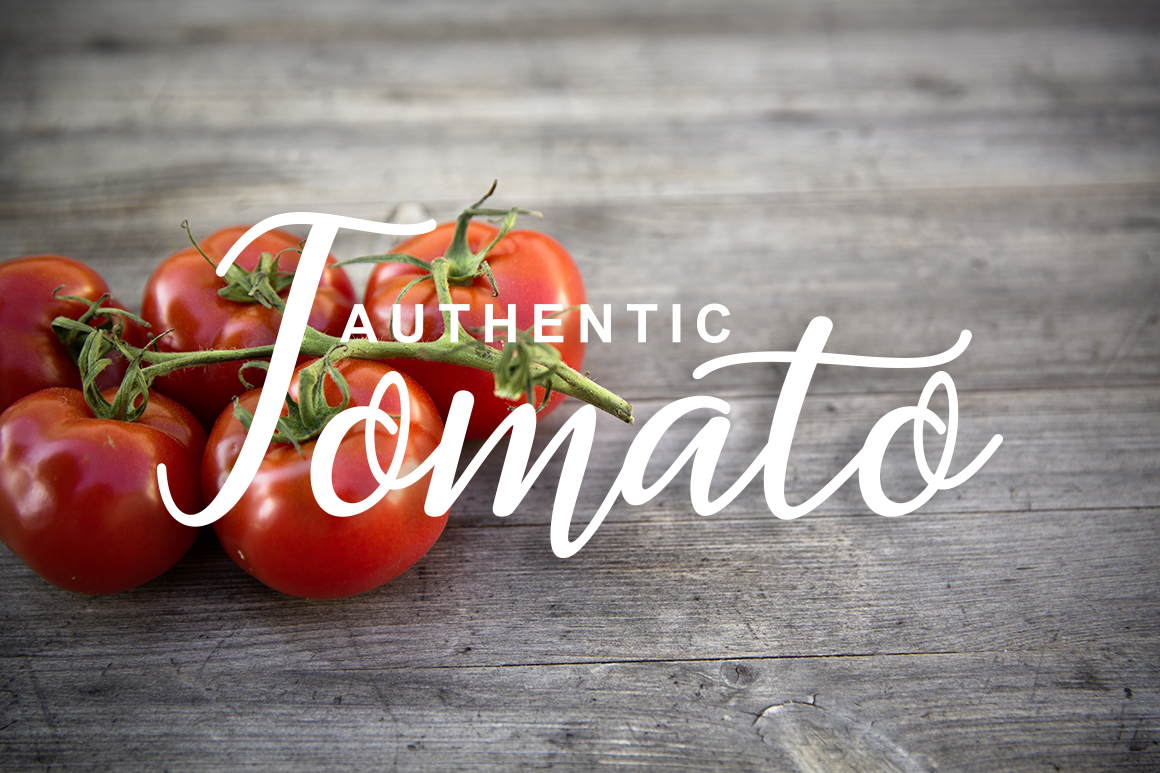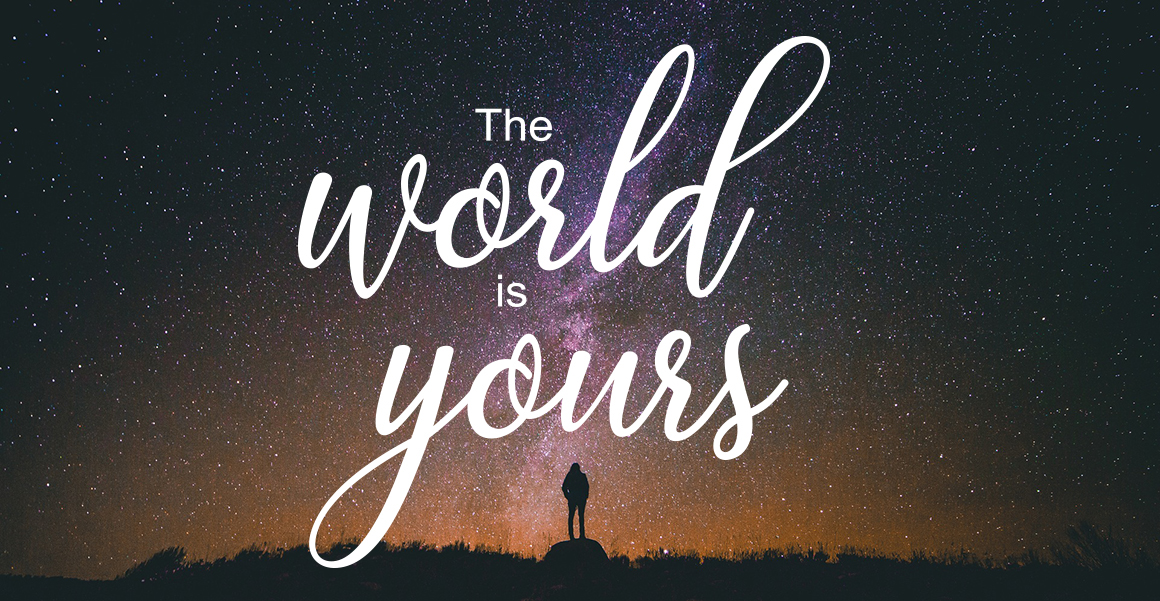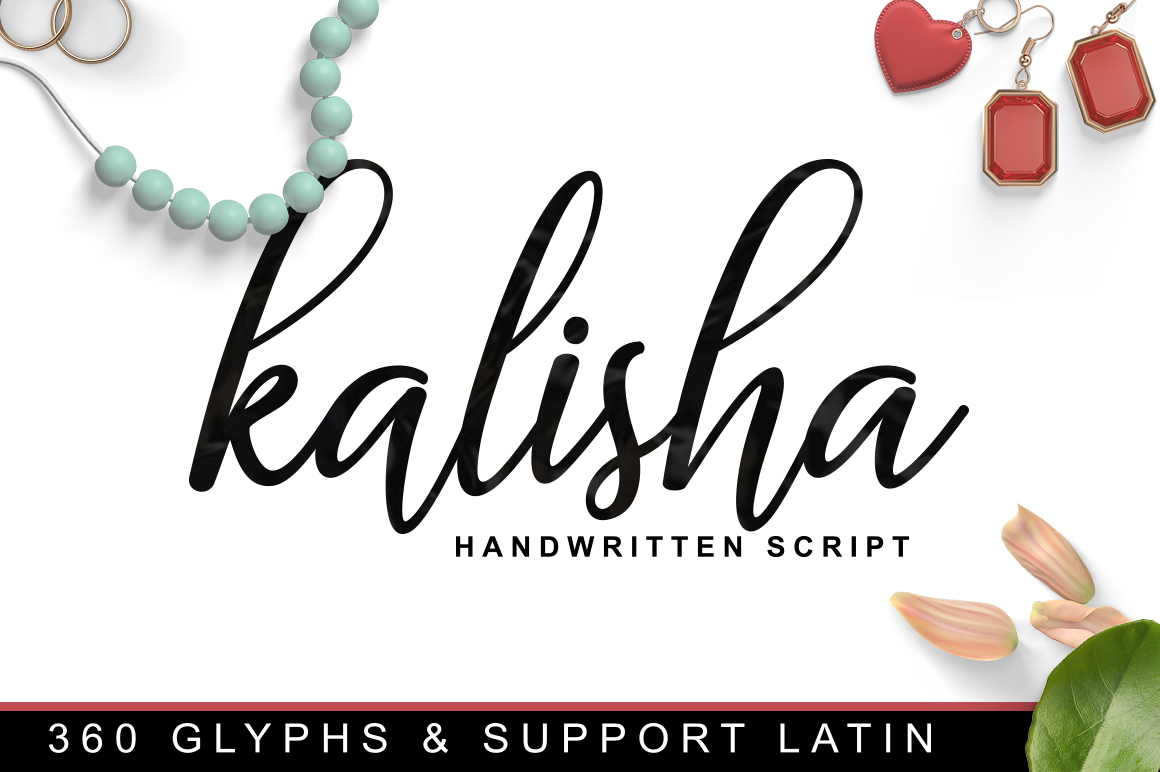
Kalisha
Kalisha Script Font
Kalisha a new fresh & modern script with a handmade calligraphy style, decorative characters and a dancing baseline! So beautiful on invitation like greeting cards, branding materials, business cards, quotes, posters, and more!! Kalisha Script come with 360 glyphs. The alternative characters were divided into several Open Type features such as Swash, Stylistic Sets, Stylistic Alternates, Contextual Alternates. The Open Type features can be accessed by using Open Type savvy programs such as Adobe Illustrator, Adobe InDesign, Adobe Photoshop Corel Draw X version, And Microsoft Word. And this Font has given PUA unicode (specially coded fonts). so that all the alternate characters can easily be accessed in full by a craftsman or designer.